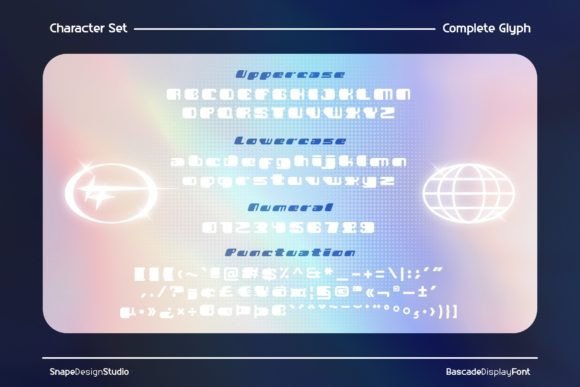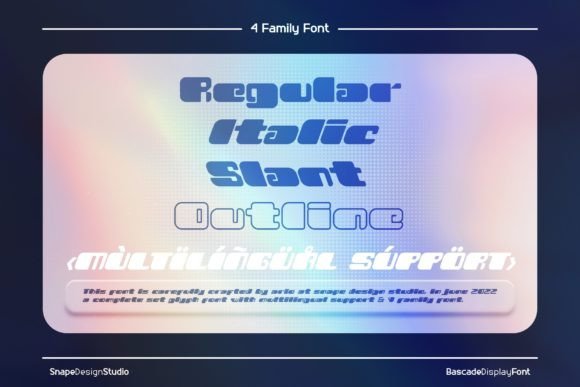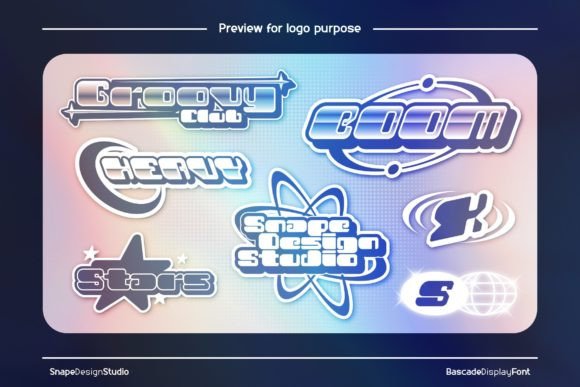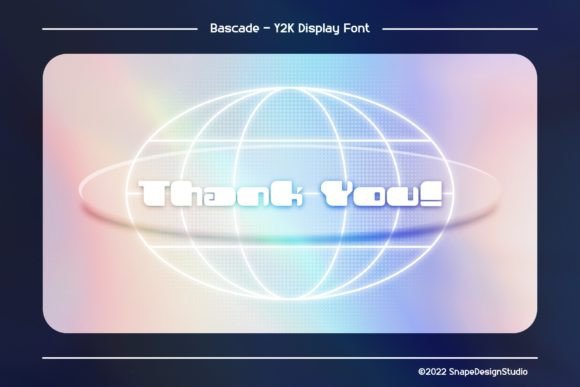
The Timeless Allure of Bascade Font
Have you ever been scrolling through your favorite design blogs, and suddenly, a font catches your eye? For me, that moment happened when I stumbled upon a futuristic logo that seemed to transport me back to the vibrant world of Y2K design. The font that made that logo pop was none other than the Bascade Font – a stylish, modern display font that’s perfect for making a statement.
The Bascade Font is more than just a trendy addition to your design arsenal. It’s a powerful tool that can elevate your creative ideas and make them stand out in a crowded digital landscape. With its unique blend of futuristic and retro elements, this font is ideal for technology, digital, and space galaxy themes – and can be used in a wide range of applications, from movies and documentaries to logos, posters, and book covers.
- Font Family: Bascade Font is a sans-serif font family with multiple weights and styles.
- Unique Characteristics: Bascade Font features a unique blend of modern and classic design elements, with clean lines, rounded edges, and subtle flair.
- Supported Languages: Bascade Font supports a wide range of languages, including Latin, Cyrillic, Greek, and many more.
Bascade Font Review
Overall, I think Bascade Font has a lot of potential, but it’s not without its limitations. Here are my thoughts on what works well and what could be improved.
- The font’s unique, modern design makes it perfect for trendy and creative projects.
- The bold and regular weights are well-balanced and versatile, making it easy to use in a variety of contexts.
- The font’s OpenType features allow for some really interesting and dynamic effects, such as ligatures and swashes.
- The font’s legibility can be a bit of a concern, especially at smaller font sizes. Some letters can be quite thin and may be difficult to read.
- The font’s x-height is a bit inconsistent, which can make it harder to use in certain contexts, such as body text.
- The font’s kerning could be improved, particularly between certain letter combinations.
Overall, I think Bascade Font is a great choice for designers who want to add a touch of modernity and flair to their projects. However, it may not be the best choice for body text or situations where legibility is a top priority. With a bit of tweaking and refinement, I think this font could be truly exceptional.
For the best results, use Bascade Font in bold or italic styles to add emphasis and visual interest. Experiment with different font sizes and combinations to create a unique look.
Bascade Font is ideal for:
- Emphasis and highlighting
Alternatives to Bascade Font
Playfair Display is a luxurious, high-end serif font ideal for titles, headings, and other large text elements. It is perfect for creating a sense of sophistication and elegance in designs. When to use: Luxury branding, high-end marketing materials, and special events.
Comparison to Bascade Font: Playfair Display has a more traditional, classic feel compared to Bascade Font’s modern and minimalist design. While Bascade Font is ideal for modern and tech-related designs, Playfair Display excels in creating a sense of luxury and sophistication.
Merriweather is a classic serif font with a timeless and elegant feel. It is suitable for body text and can be used for a wide range of designs, from books to websites. When to use: Educational materials, literature, and corporate websites.
Comparison to Bascade Font: Merriweather has a more traditional and formal feel compared to Bascade Font’s modern and sleek design. While Bascade Font is ideal for modern and tech-related designs, Merriweather excels in creating a sense of tradition and sophistication.